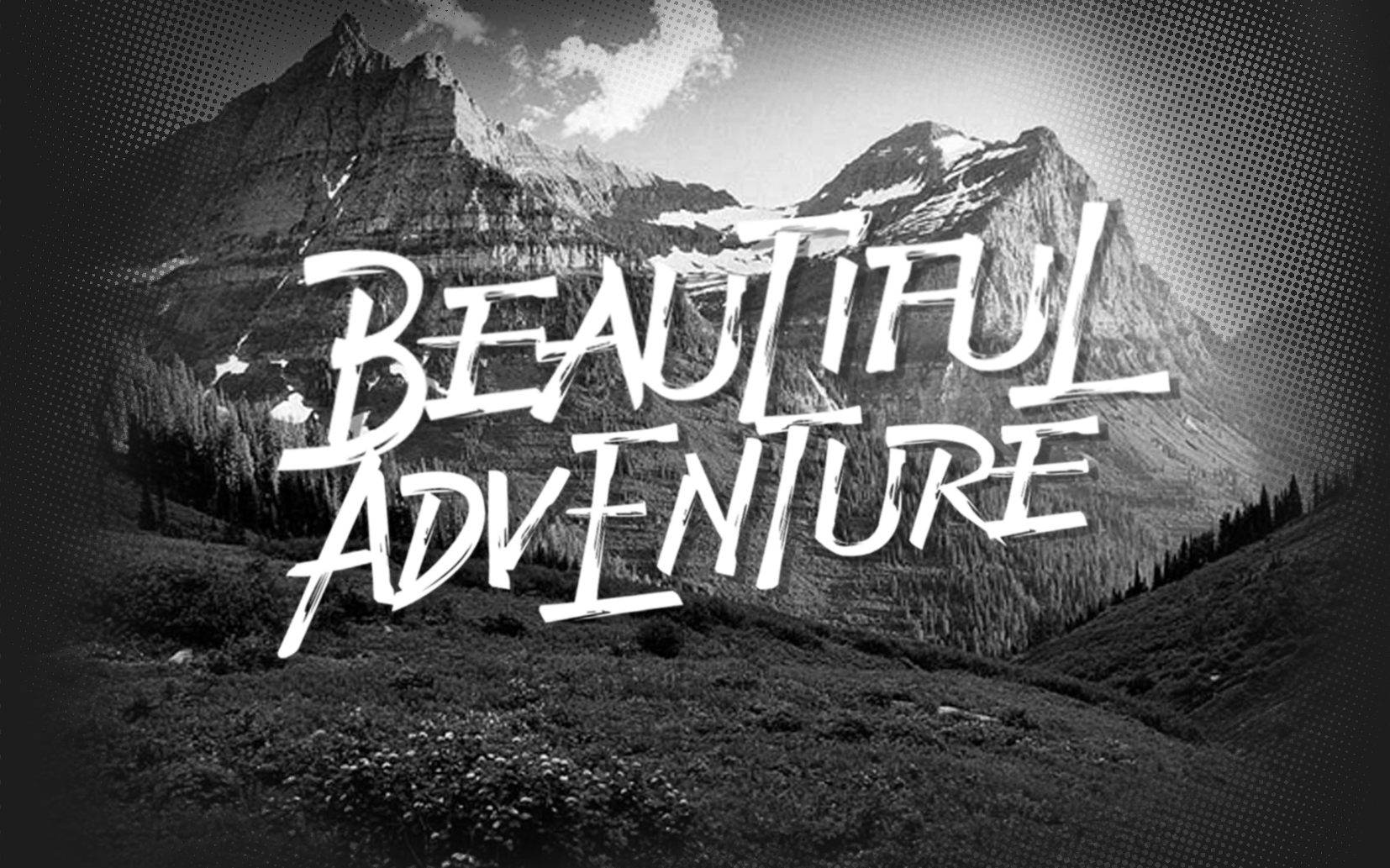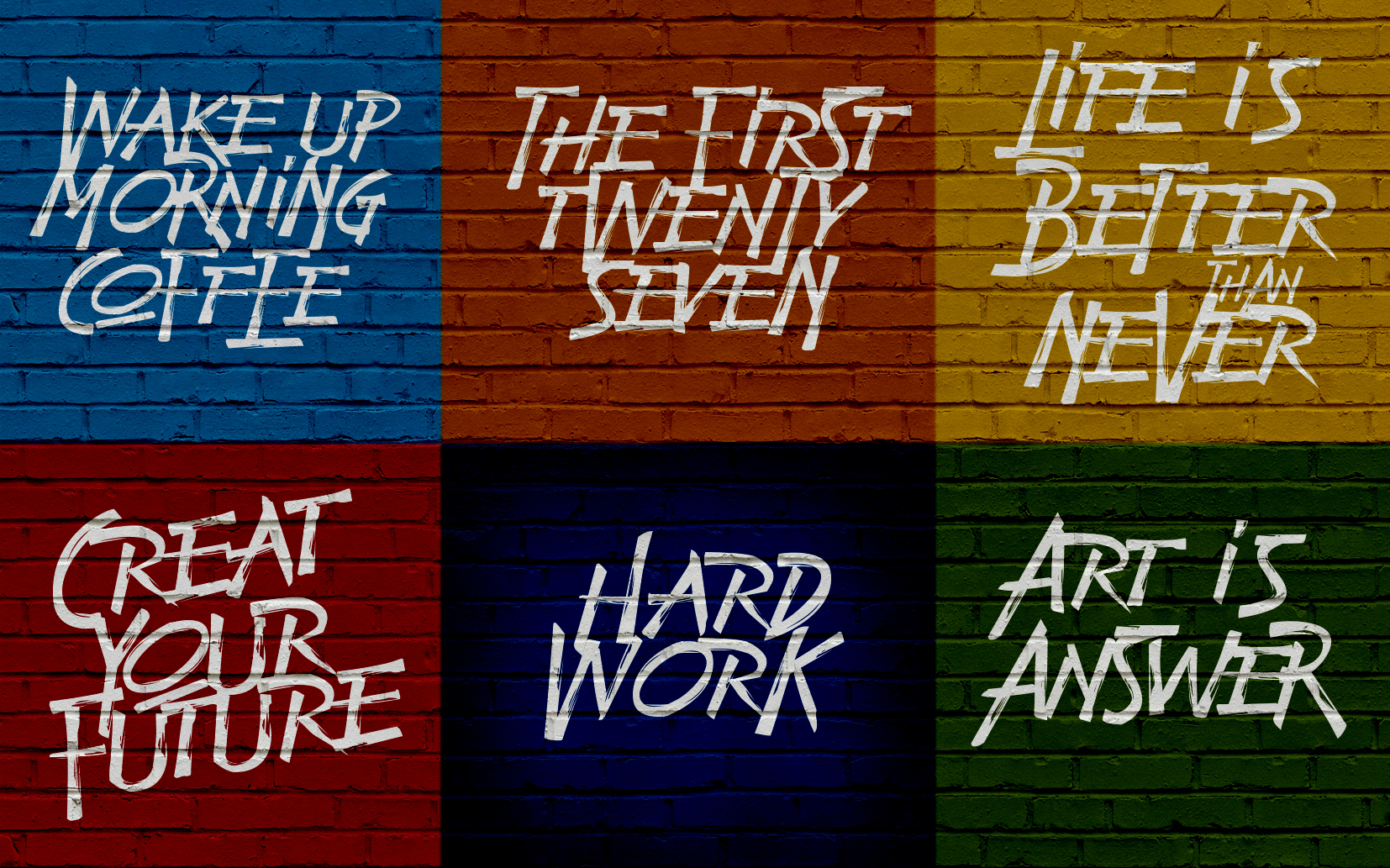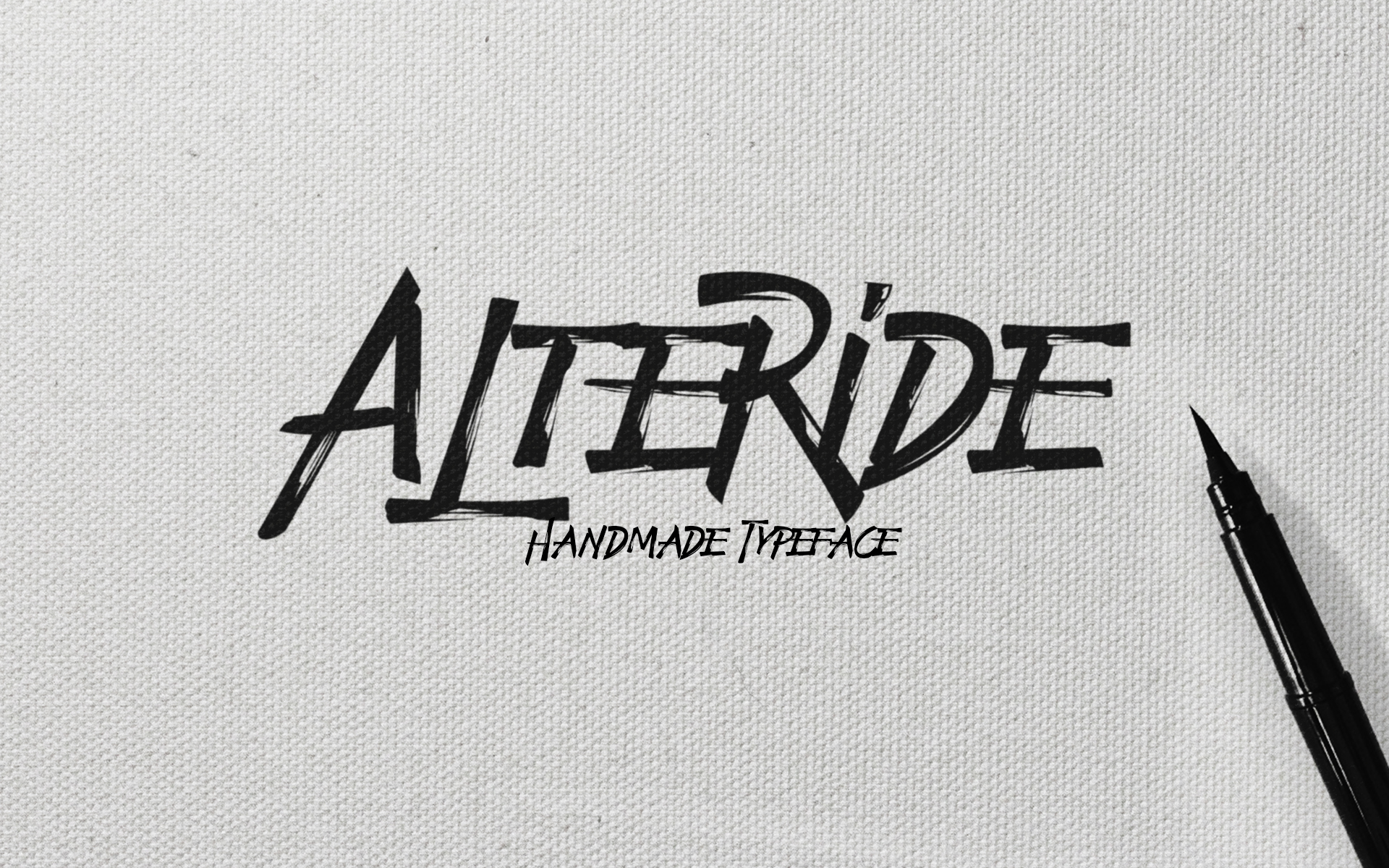
Alteride Brush Font
Alteride Penbrush is font with freestyle brush and you can combine uppercase with lowercase for a new style.
| Classification: | Brush Fonts, Handwritten Fonts, Script Fonts |